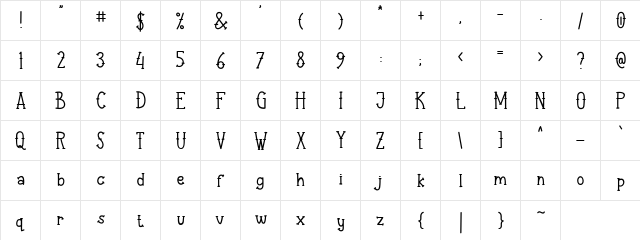
Aye Matey Regular Font Preview
Aye Matey Regular
Aye Matey Regular Font Details
Design Context for Aye Matey Typeface
Aye Matey takes a measured approach to typography — its balanced proportions and neutral character make it a reliable workhorse for both digital and print work.